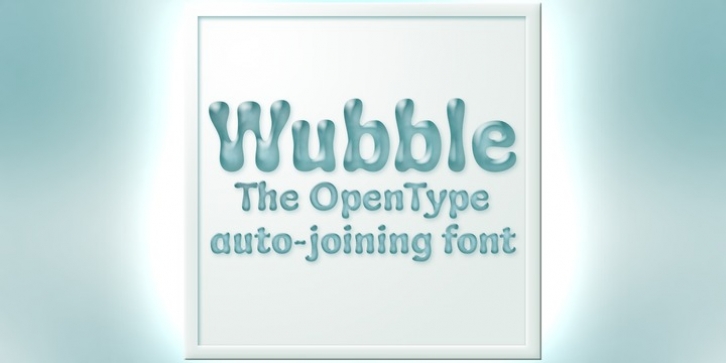
Welcome to Wubble labs where the future of fonts is today. We have something new and very exciting to show you; Wubble, the finest liquid font we’ve ever produced. This font is the result of years of meticulous research to duplicate the precise characteristics of colloidal glopulation. In layman’s terms: it looks like puddles of water. Actually, it was my assistant who accidentally left a cheese slice on hot plate over a Bunsen burner that gave us the breakthrough we were looking for.